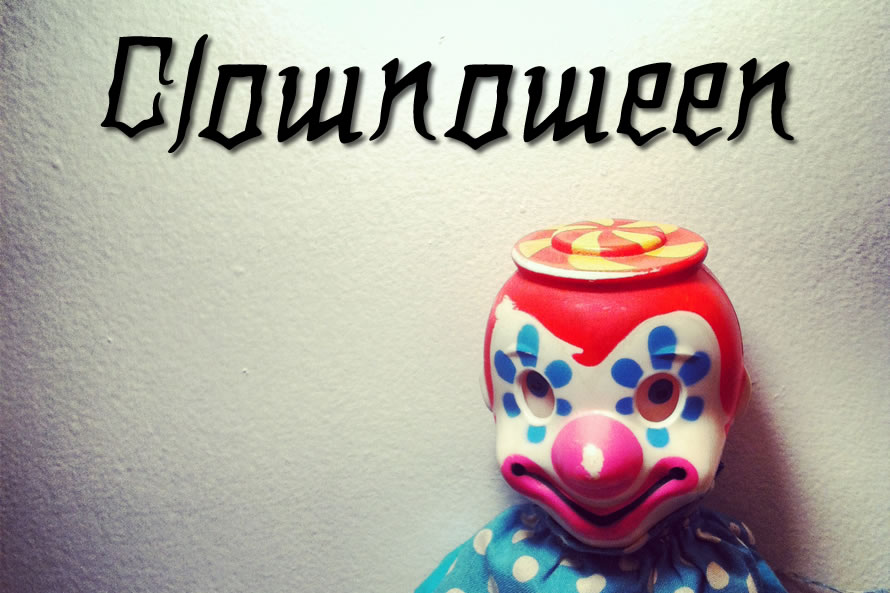
**Introducing Clownoween: The Hauntingly Delectable Font for Halloween Extravaganzas!**
Prepare to be mesmerized by Clownoween, an enchanting display font that will add a touch of spooky allure to your Halloween creations. Inspired by the enigmatic world of clowns and the eerie festivities of Halloween, Clownoween is meticulously crafted to evoke a sense of whimsy and fear.
This captivating font boasts a unique blend of playful curves and sharp angles, reminiscent of a clown's mischievous grin. Its intricate details and elegant flourishes will transform your designs into hauntingly beautiful works of art. Whether you're conjuring invitations for a spine-tingling Halloween party or crafting spine-chilling decorations, Clownoween will add an unforgettable touch of enchantment.
But Clownoween is not just a pretty face—it's also incredibly versatile. Its meticulously designed characters are perfect for a wide range of Halloween-themed projects. Create spine-tingling posters that will send shivers down your guests' spines, design eerie flyers that will lure them into your haunted house, or craft enchanting social media posts that will make your followers scream with delight.
With Clownoween, you'll have the power to unleash your creativity and conjure up hauntingly beautiful designs that will make this Halloween truly unforgettable. So, embrace the magic of Clownoween and let the spooky season inspire your imagination.
**Key Features:**
* Enchanting display font perfect for Halloween-themed designs
* Playful curves and sharp angles create a unique and captivating aesthetic
* Intricate details and elegant flourishes add a touch of sophistication
* Versatile design suitable for a wide range of Halloween projects
* Includes all basic letters, numeral characters, and basic punctuation
**Benefits:**
* Create hauntingly beautiful Halloween invitations, decorations, and social media posts
* Add a touch of spooky allure to your designs
* Unleash your creativity and conjure up unforgettable Halloween experiences